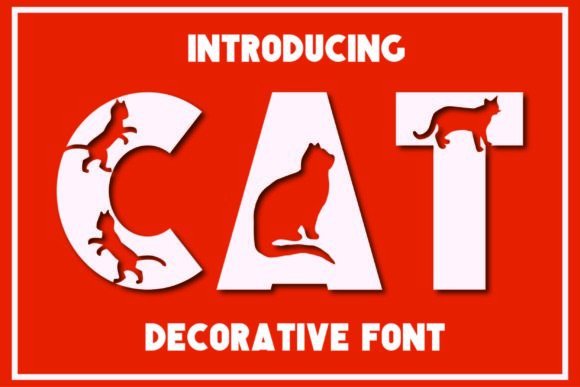
The Purrfect Font: A Deep Dive into Cat Font
I still remember the time I was working on a project for a children’s book, and I was struggling to find the right font. The client wanted something playful, yet elegant, and I was determined to deliver. That’s when I stumbled upon Cat Font, a cool and friendly decorative font that instantly caught my attention. In this article, I’ll share my experience with Cat Font, its features, and how to make the most of it in your designs.
An Honest Review of Cat Font
So, what makes Cat Font so special? Here are a few things I love about it:
- ✨ Unique and playful design that’s perfect for cartoon-related projects or children’s games
- ✅ Easy to read, even at smaller font sizes
- 💕 Lovely, whimsical touch that’s sure to delight your audience
- 🎨 Highly versatile and can be used for a wide range of creative projects
Of course, no font is perfect, and Cat Font has a few quirks:
- 🤔 Some letters, like the uppercase “Q” and “J”, can be a bit tricky to read if you’re not used to them
- ⚠️ Limited kerning options, which can make it a bit challenging to use for body text
The Story Behind Cat Font
Cat Font was designed by a talented font creator who wanted to capture the playful spirit of felines. Inspired by cat illustrations and cartoons, this font is meant to bring a smile to your face and a touch of whimsy to your designs.
| Font Name | Cat Font |
| Author | CHEETAH DOODLE |
| What type of projects is Cat Font best suited for? | Cat Font is perfect for cartoon-related designs, children’s games, and any project that requires a playful, yet elegant touch. |
| Is Cat Font available in different weights or styles? | Cat Font might not have multiple weights or styles, but it’s designed to be versatile and work well in various contexts. |